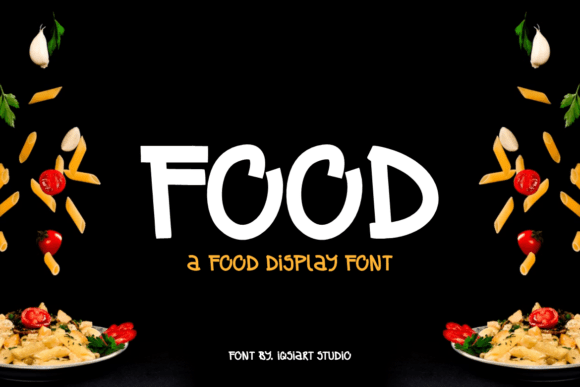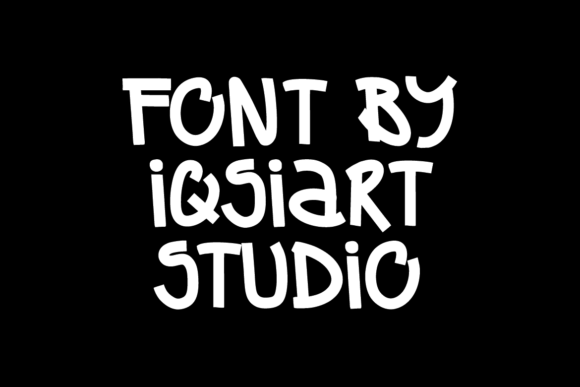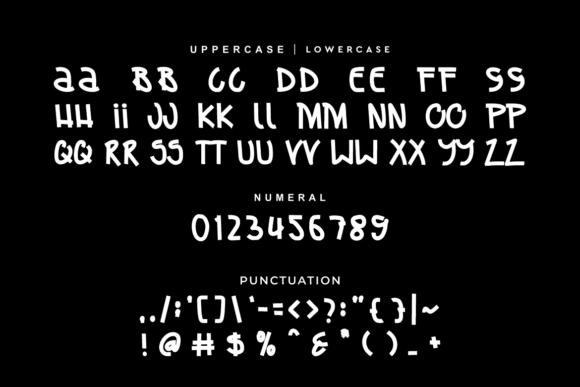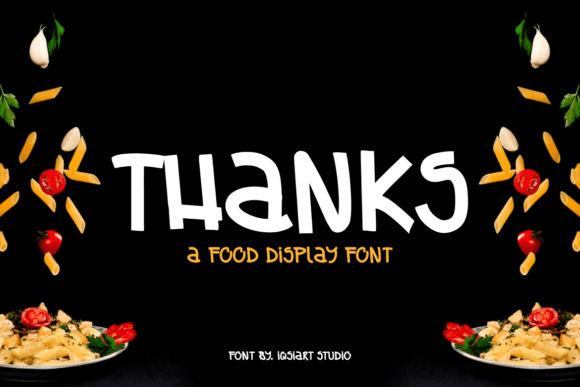
Get Ready to Savor the Flavor of Design with Foody Hokan Font
Have you ever walked into a bustling café or restaurant, surrounded by the mouthwatering aromas of freshly baked goods and sizzling meals, and felt inspired to create something deliciously beautiful? That’s exactly the kind of creative spark that the Foody Hokan Font is designed to ignite. This bold and playful display font is the perfect way to add a dash of flavor to your designs, whether you’re working on a food brand, a cooking blog, or a recipe book.
With its chunky shapes and energetic style, the Foody Hokan Font brings a lively and mouthwatering touch to any project. As a designer, you know how important it is to stand out from the crowd, and Foody Hokan Font is the ideal choice to make your work truly unforgettable. Its cheerful and tasty personality instantly grabs attention, making it a valuable addition to any designer’s toolkit.
Foody Hokan Font Key Features
- Unique Characteristics: The font features a unique blend of modern and traditional design elements, with a distinctive Japanese-inspired aesthetic.
Designer Review: Foody Hokan Font
First of all, I have to say that I’m a fan of the playful, hand-drawn vibe of the Foody Hokan Font ✨. It’s perfect for creating a fun and casual atmosphere in branding and marketing materials. The font is versatile and can be used in a variety of contexts, from food and beverage labels to social media graphics and advertising.
The Foody Hokan Font also has a great range of characters, including ligatures, swashes, and alternates, which makes it easy to customize and add a personal touch to your designs ✨. The font is also highly legible, even at small sizes, which is a major plus.
- ⚠️ The Foody Hokan Font can be a bit too playful for more formal or corporate branding projects. It may not be suitable for situations where a more professional or serious tone is needed.
- ⚠️ The font may not be as effective at smaller font sizes, where the characters can become difficult to read.
Overall, I think the Foody Hokan Font is a great addition to any designer’s toolkit ✨. It’s perfect for creating fun and engaging designs, and its versatility makes it easy to use in a variety of contexts. While it may have some limitations, I think it’s definitely worth considering for your next design project.
Tips for Getting the Most Out of Foody Hokan Font
Use the Foody Hokan Font to add a touch of Asian-inspired flair to your designs.
Combine the font with bold colors and geometric shapes to create a modern and edgy look.
Experiment with different font sizes and styles to create visual interest and hierarchy in your designs.
The Foody Hokan Font is perfect for:
Restaurant menus and signage
Food blogs and social media graphics
Asian-inspired branding and marketing materials